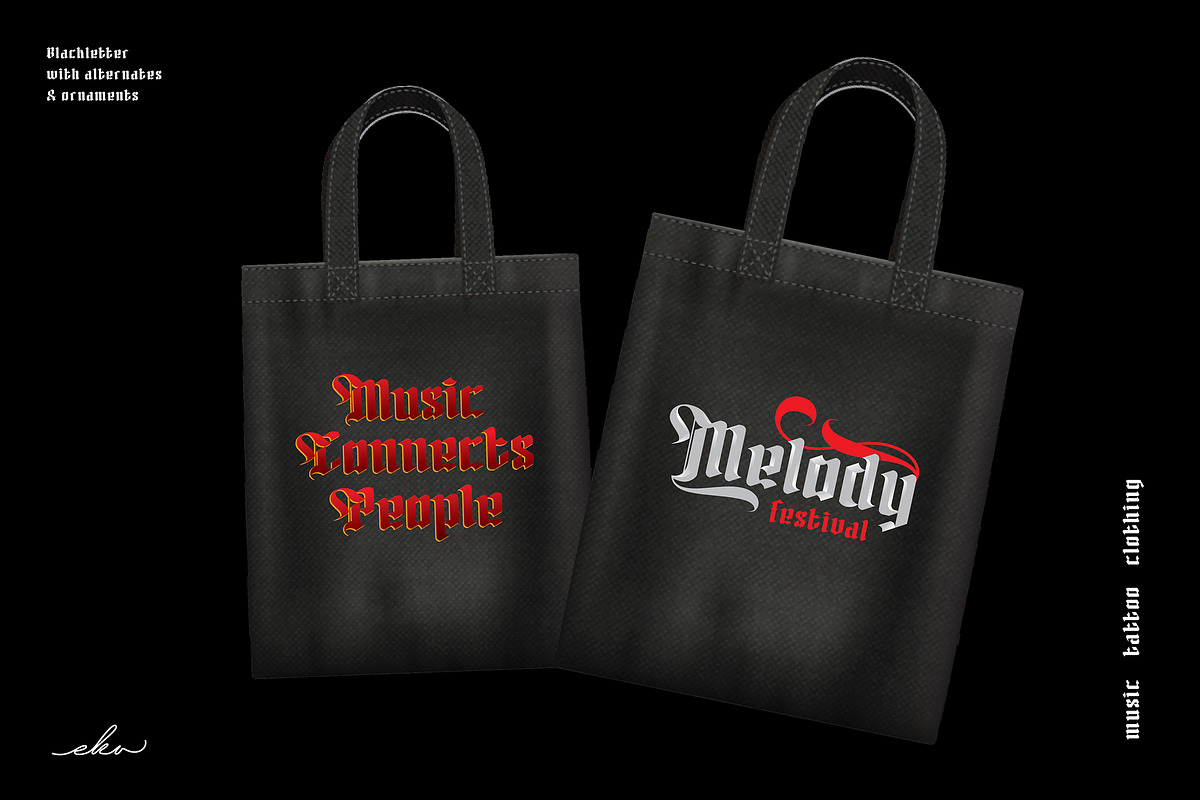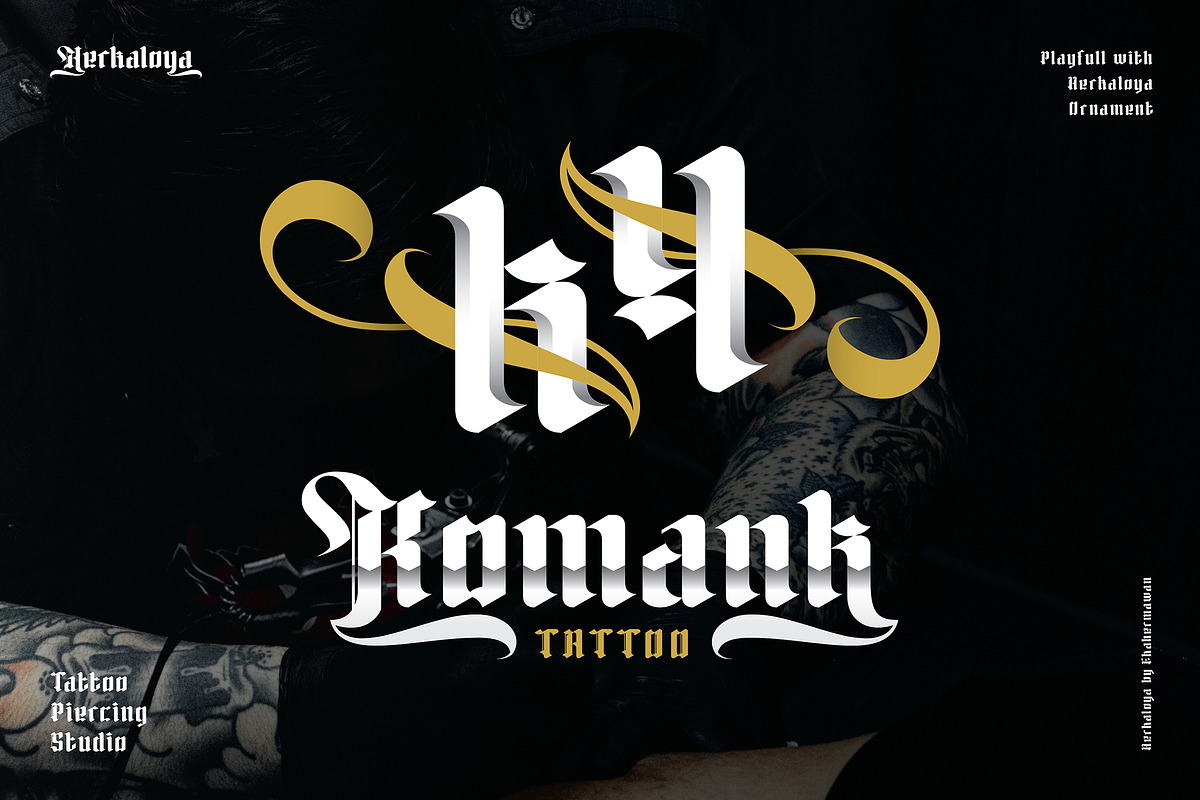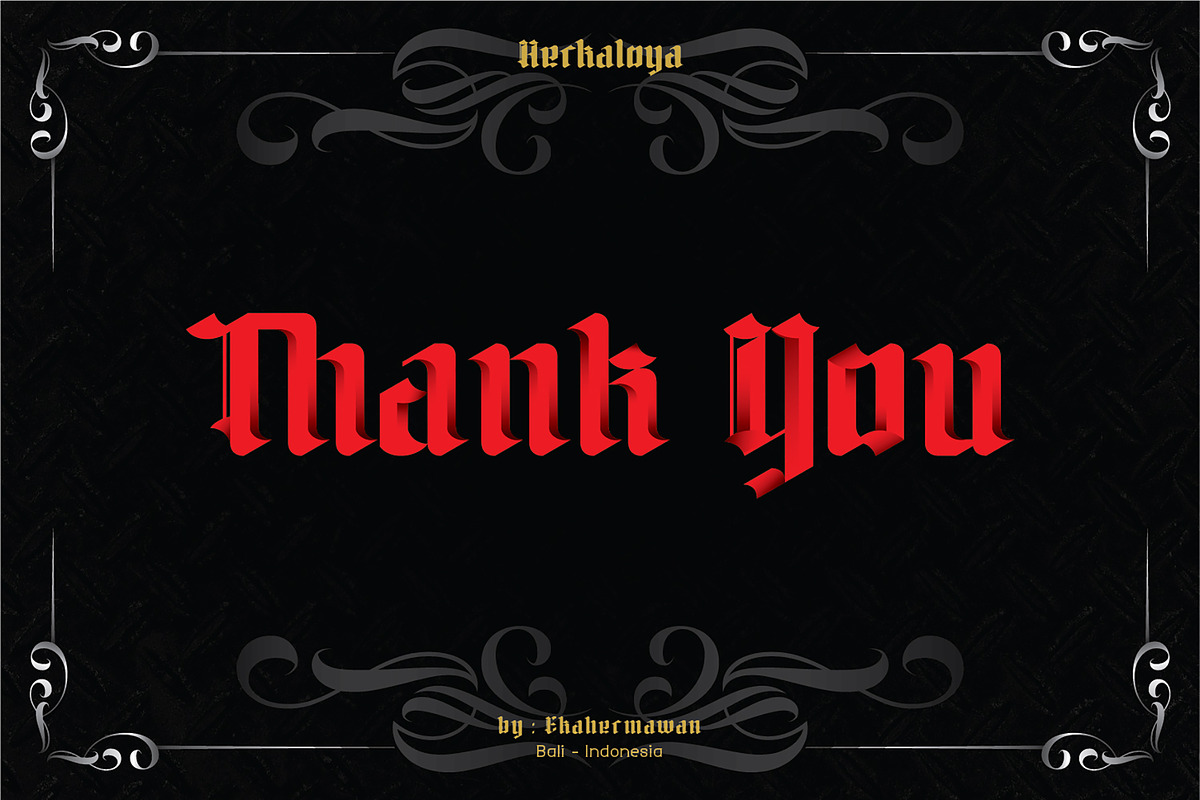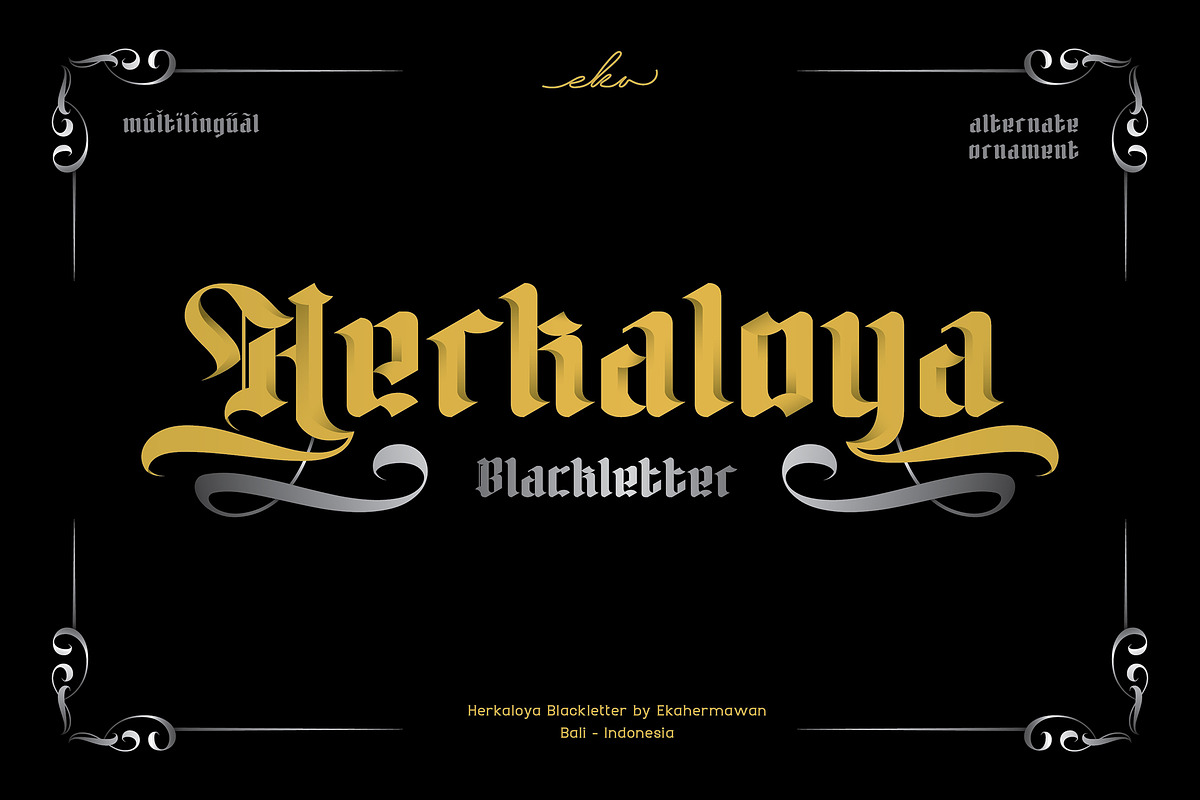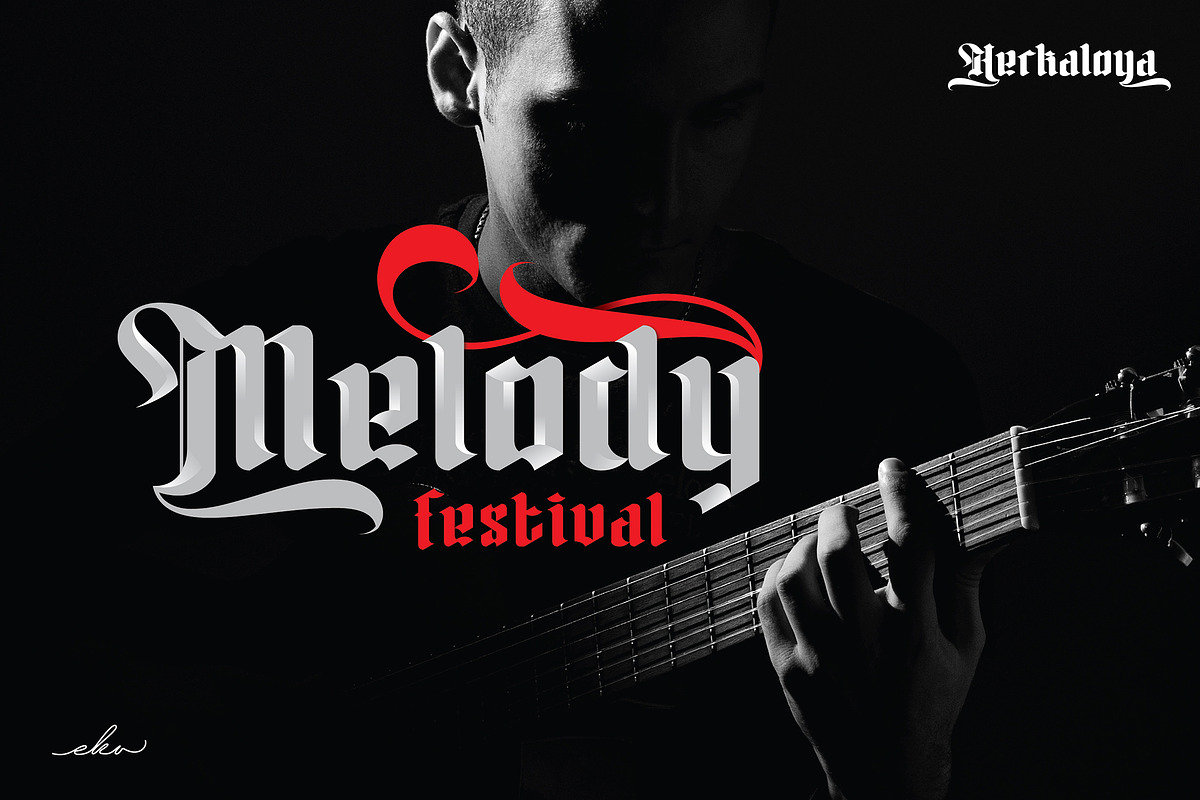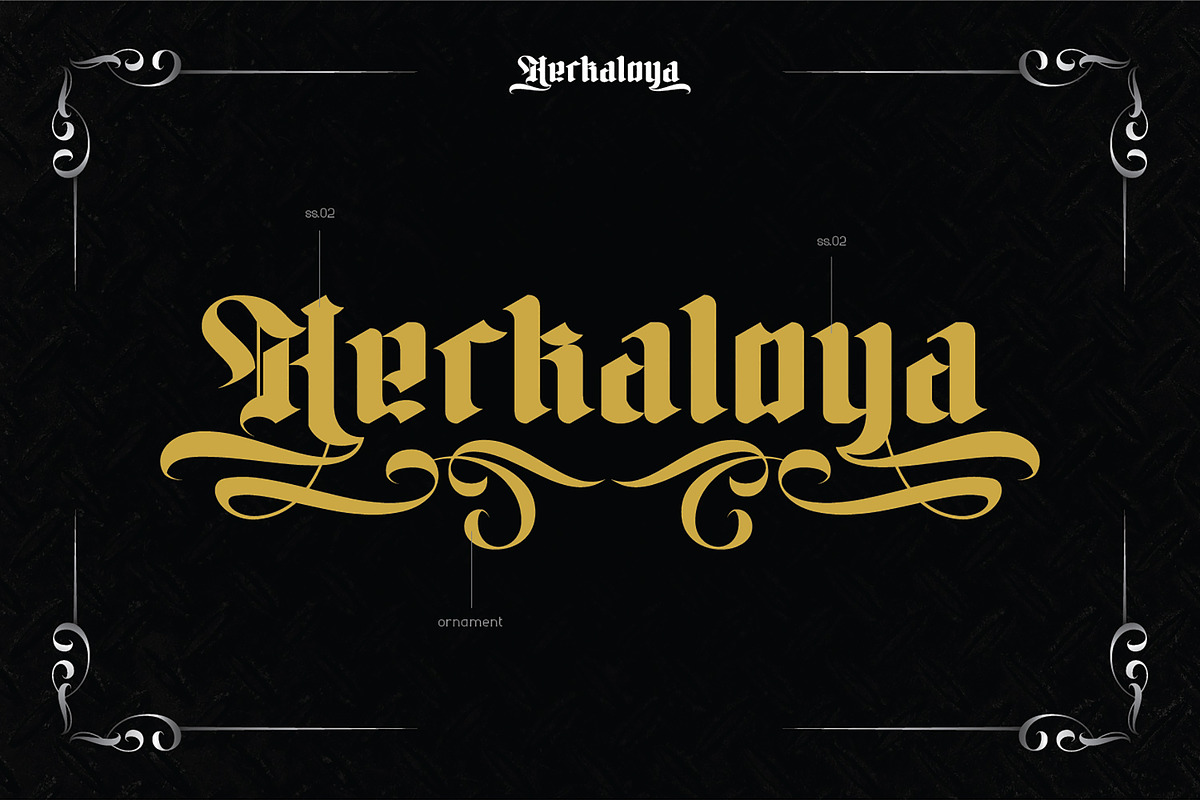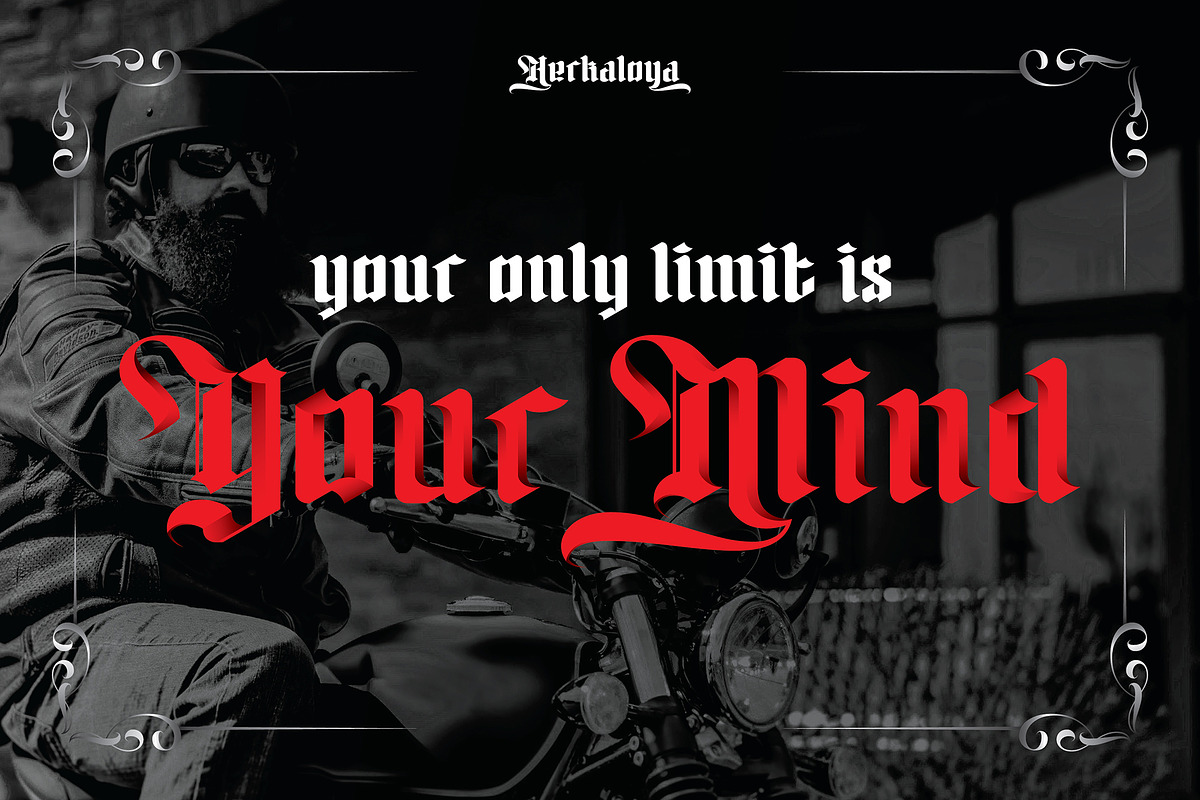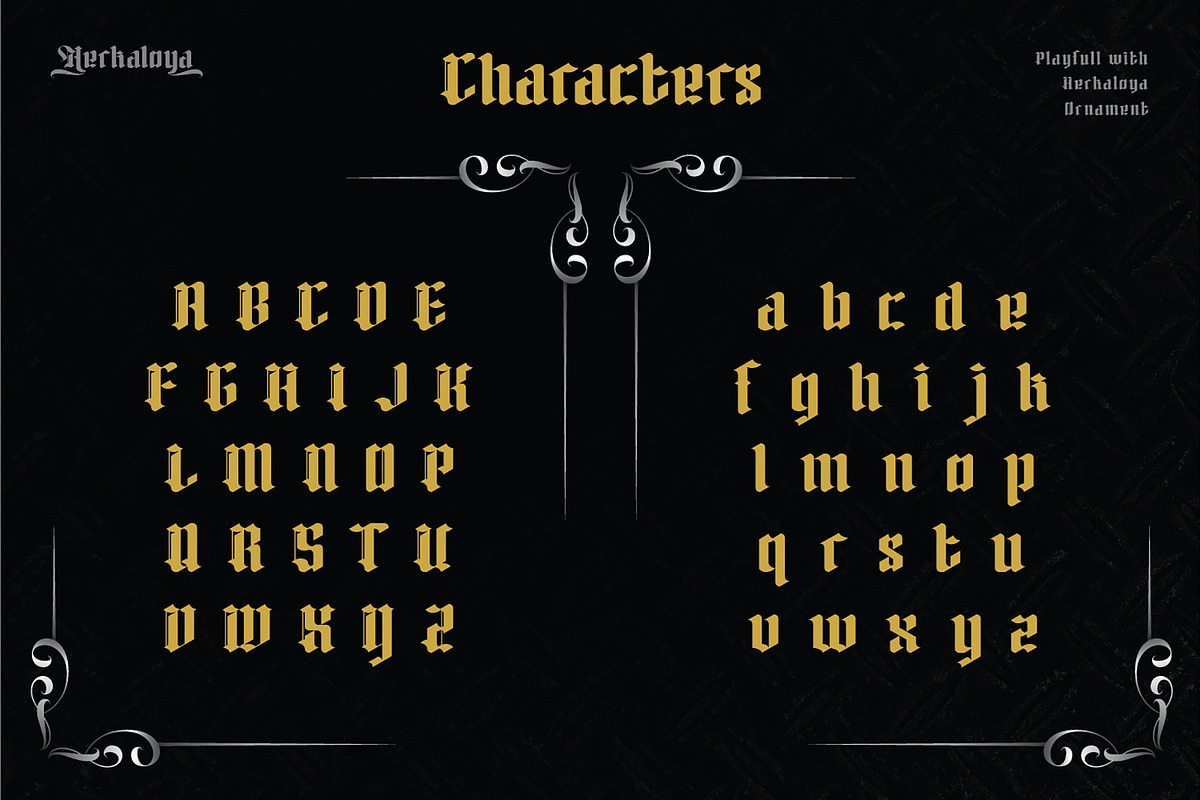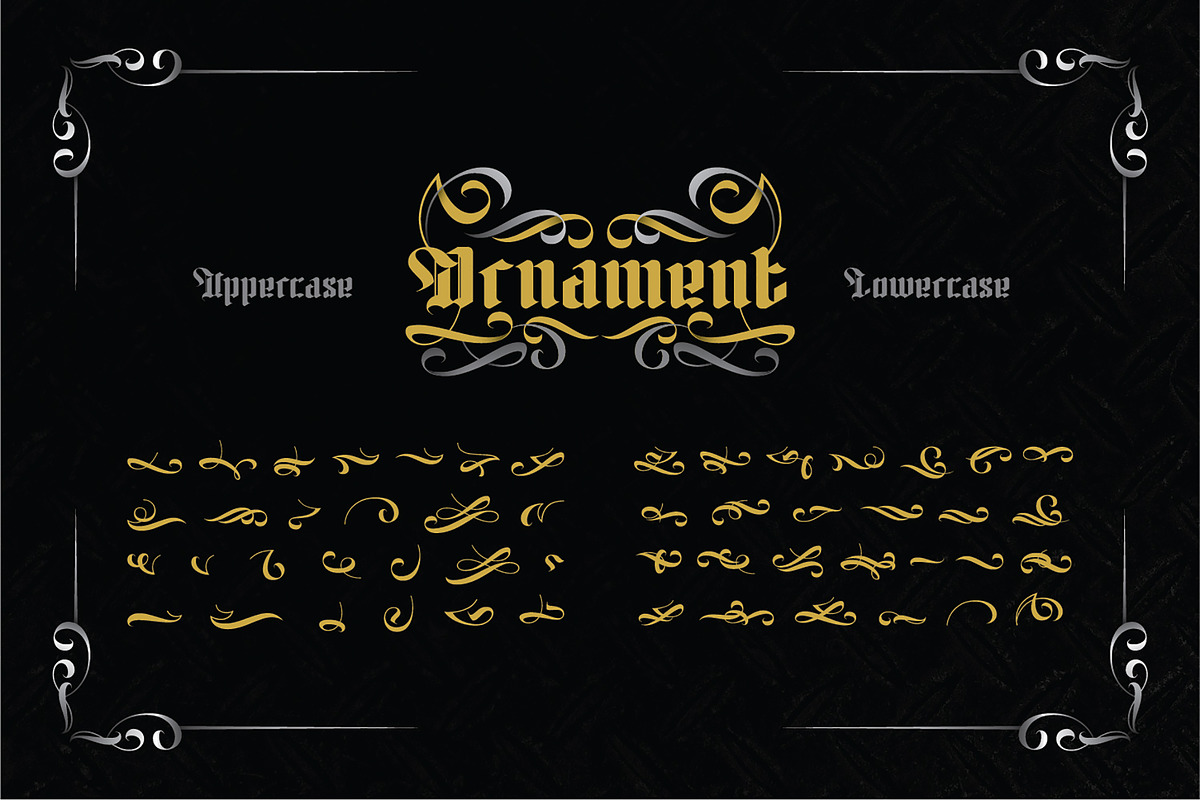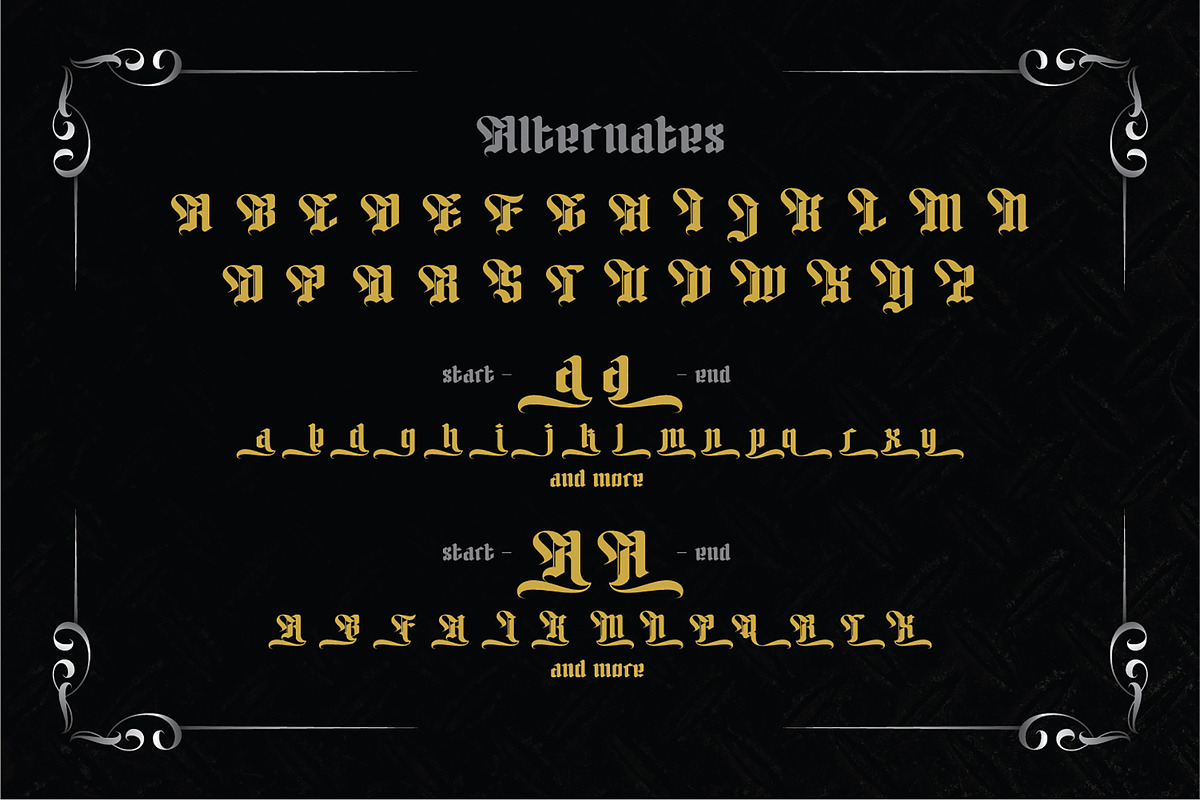
Herkaloya - Ornament Blackletter
Herkaloya is a Blackletter font with a full set of capital and lowercase letters, alternates, ligatures, multilingual support, currency figures, numerals and punctuation. Herkaloya is perfect for Tattoo Logo, Barbershop Logo, Clothing, Music Events, Branding, and many more projects with Gothic theme.
Herkaloya also provided Herkaloya Ornament to make your projects more attractive and stunning.